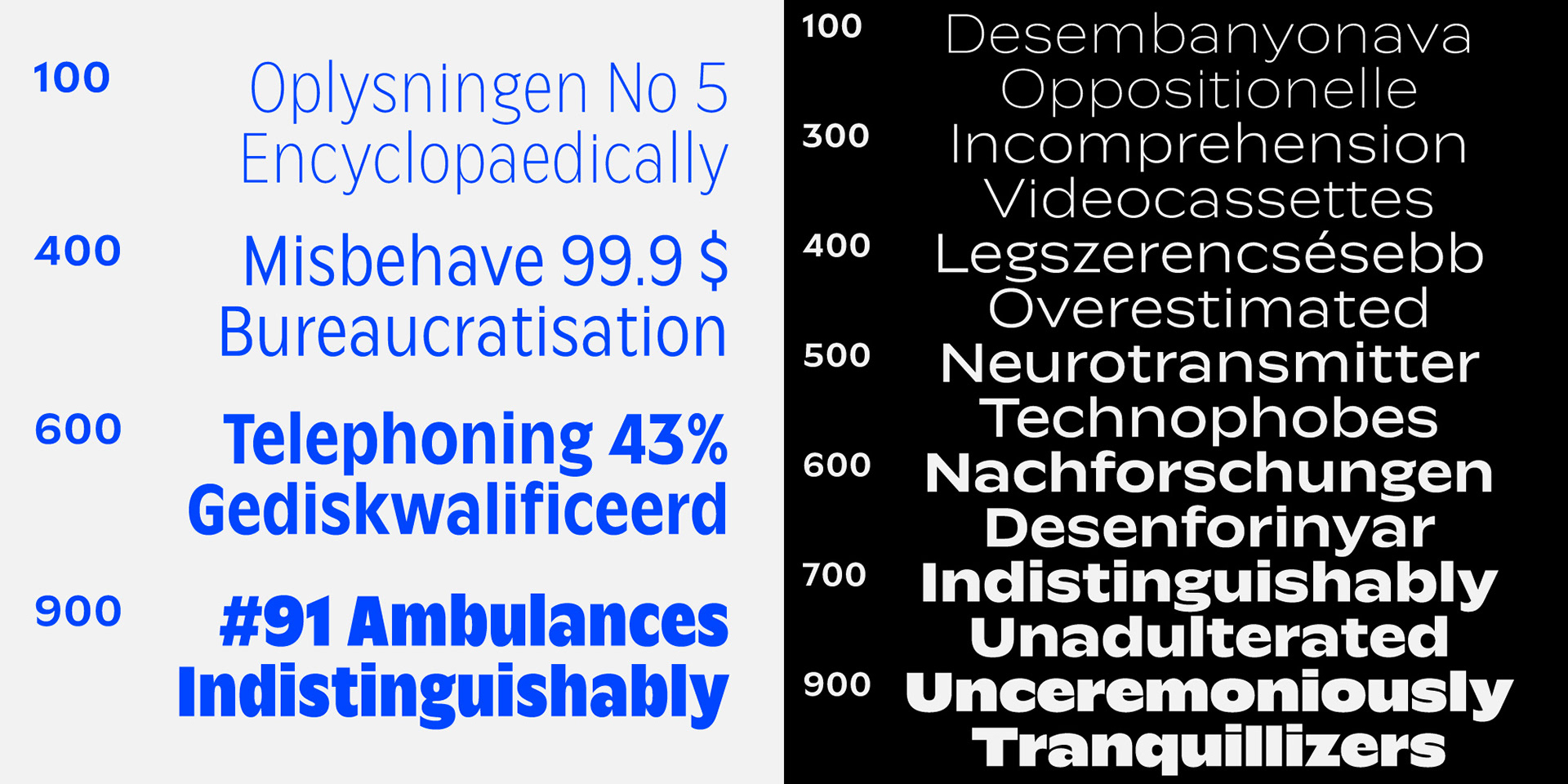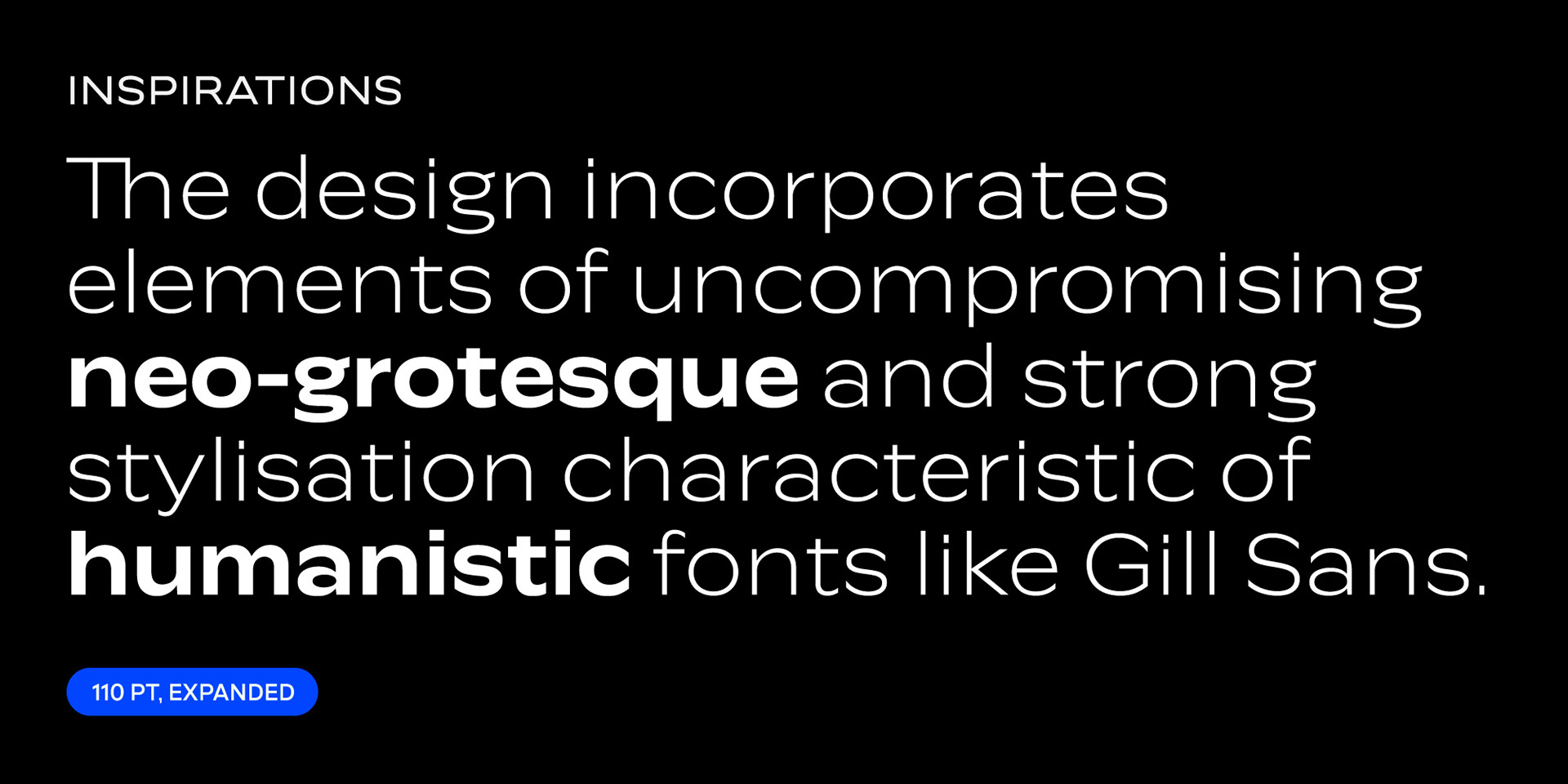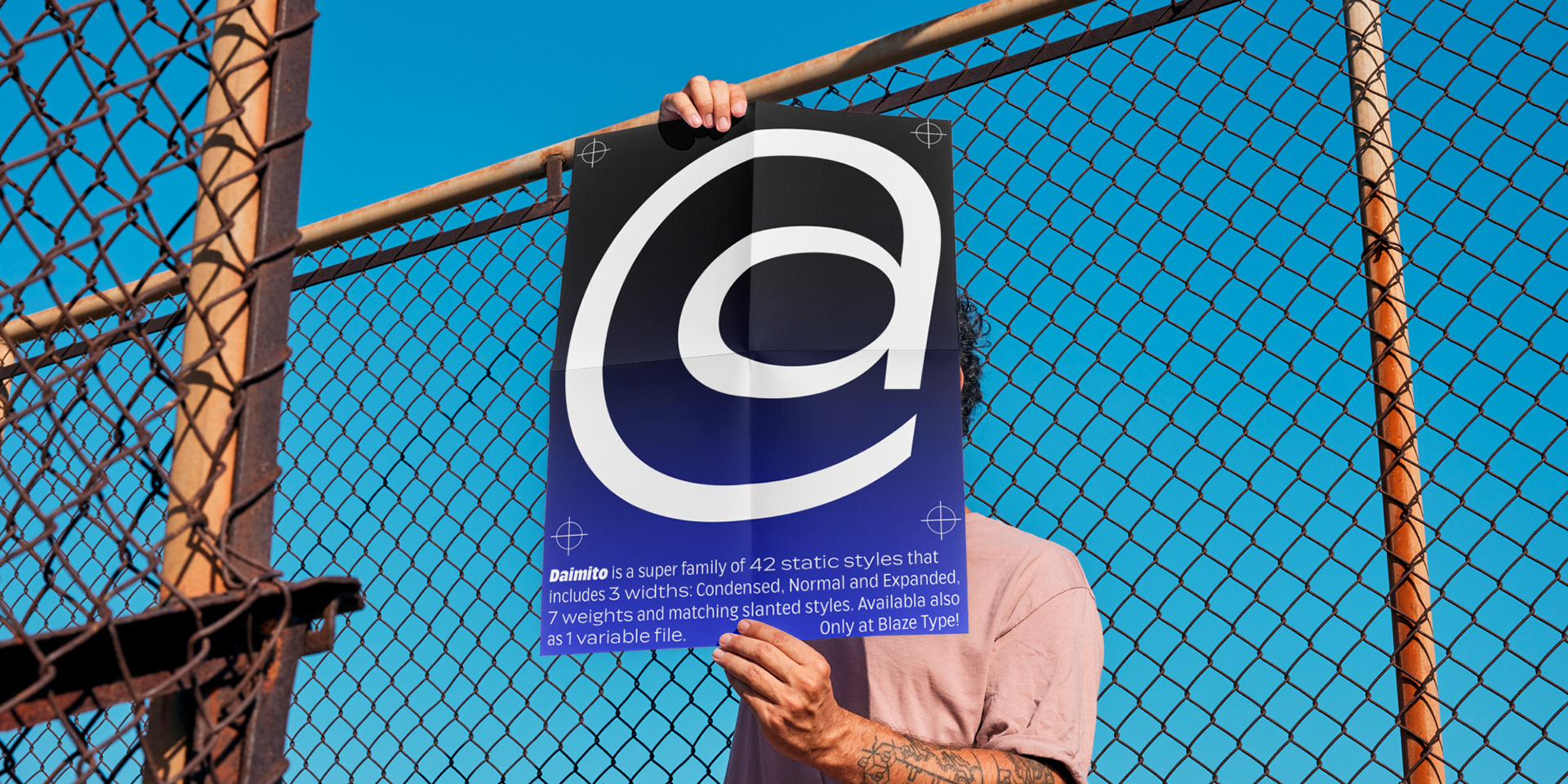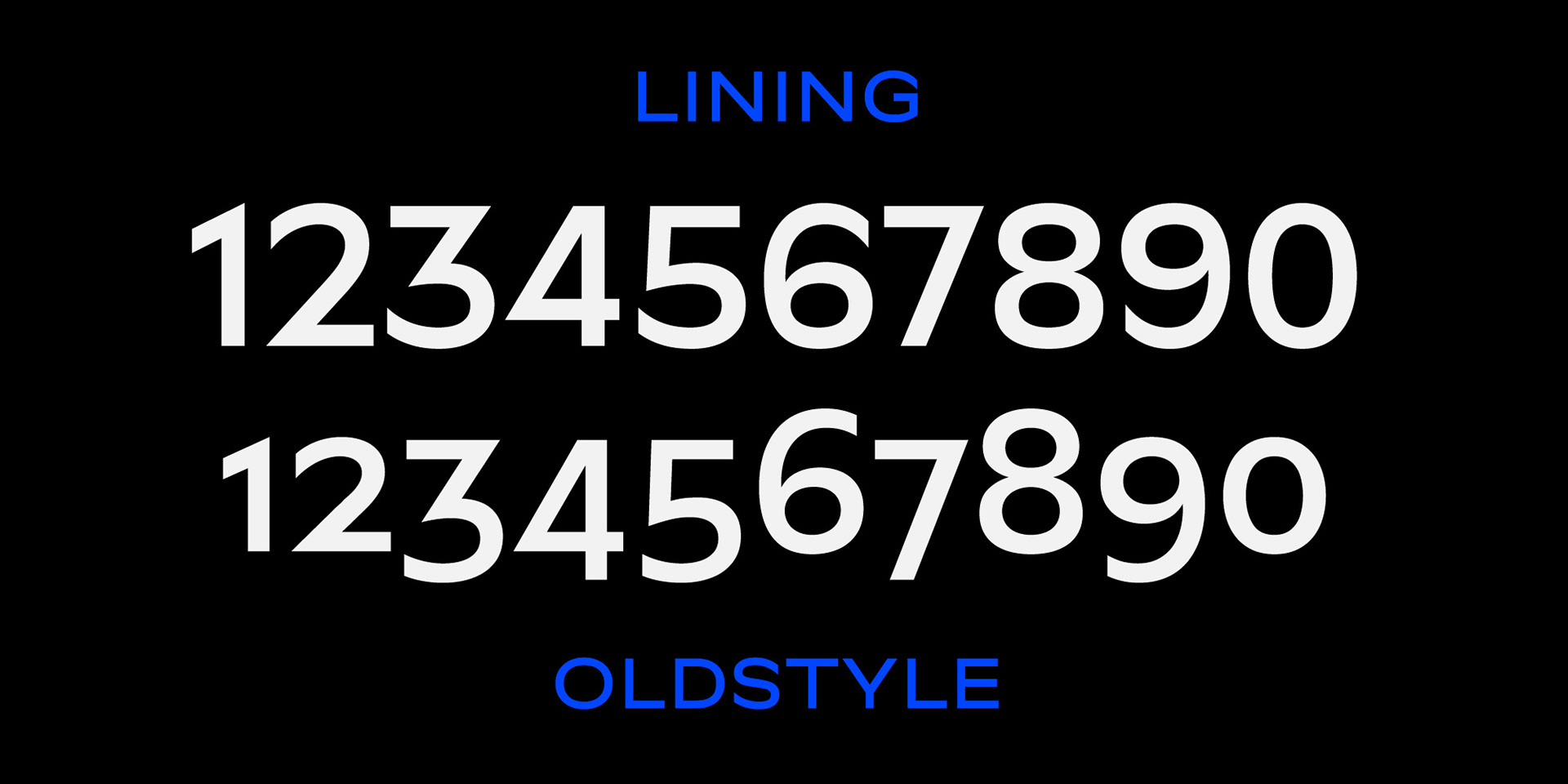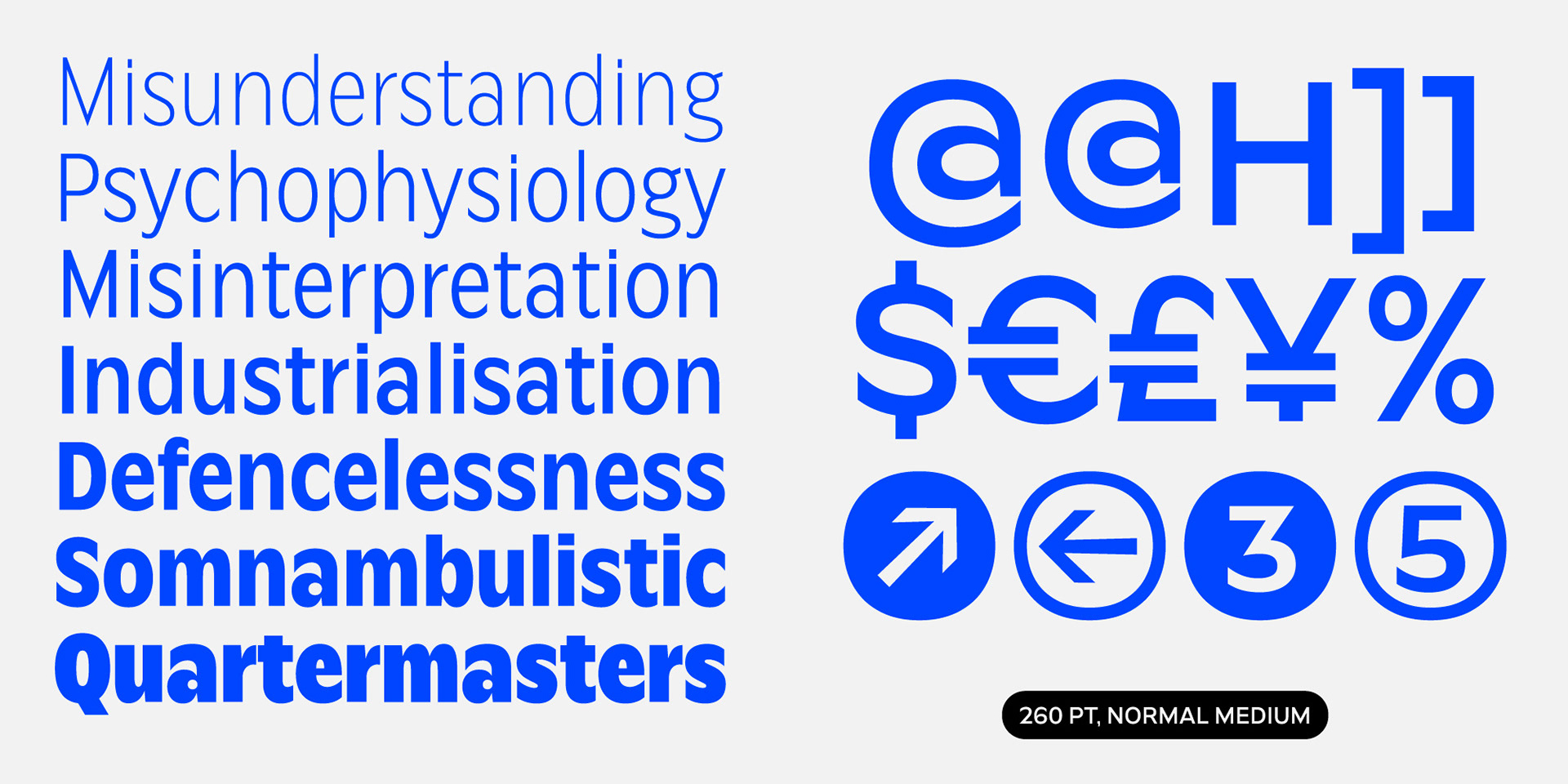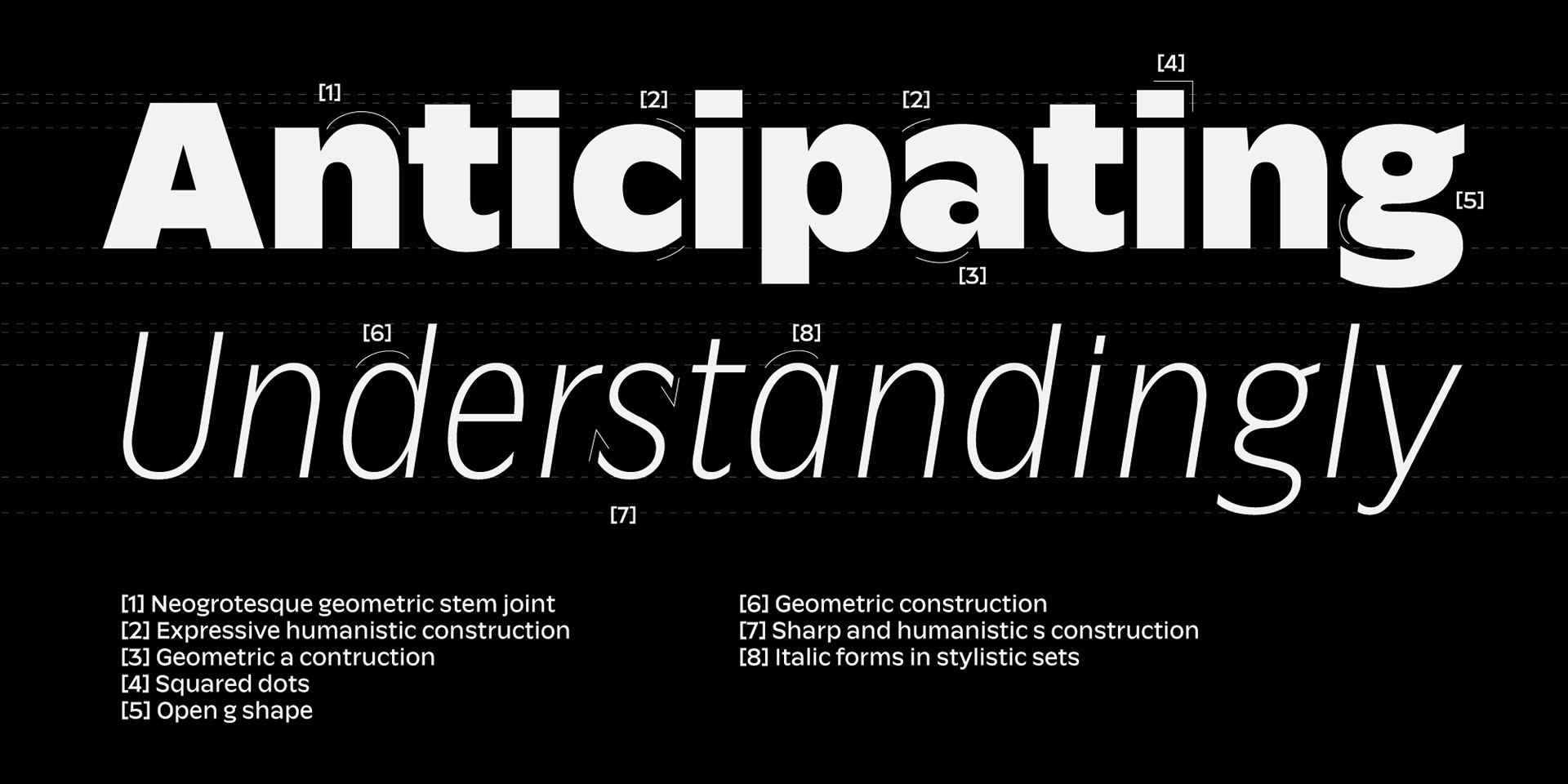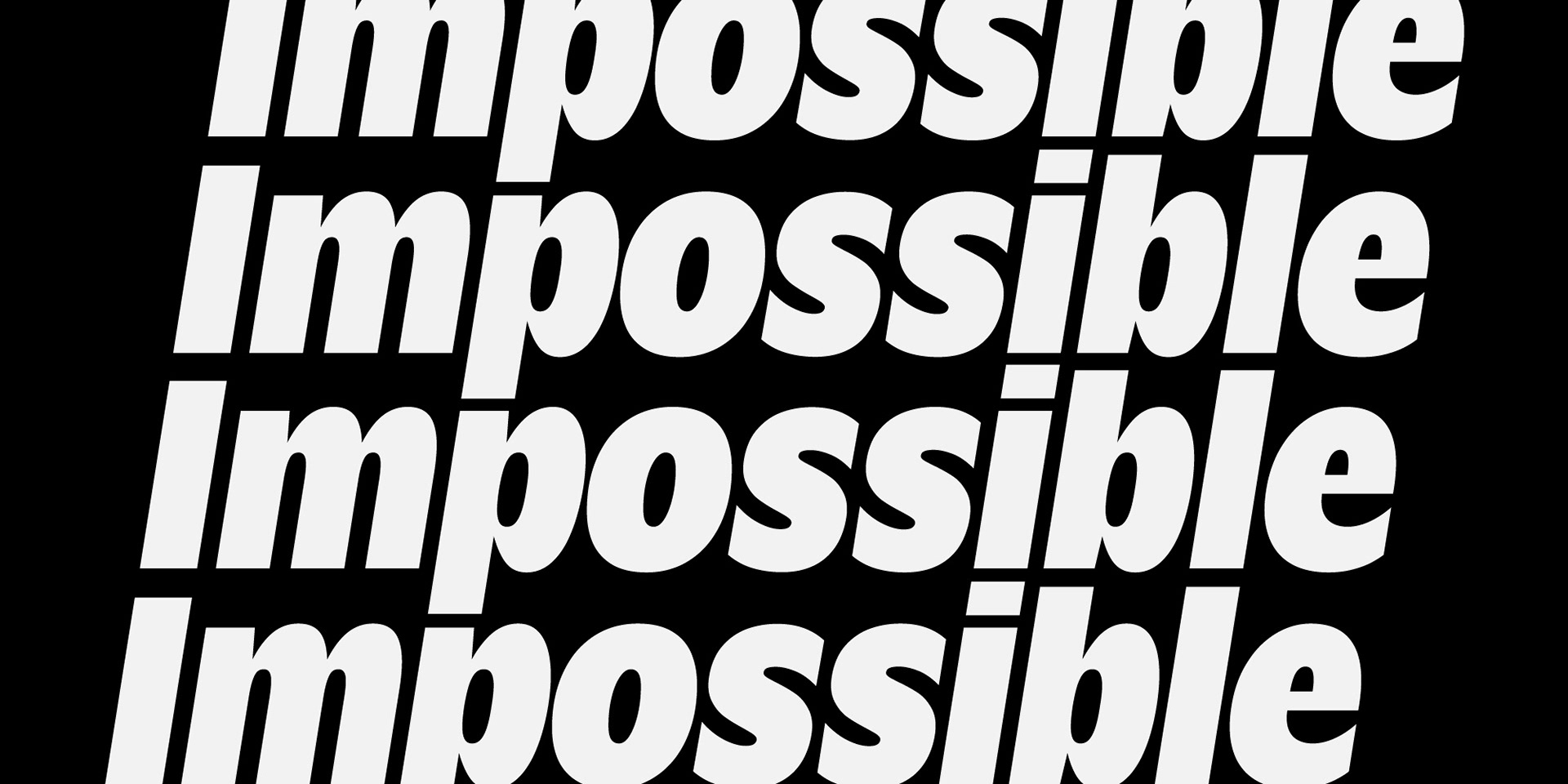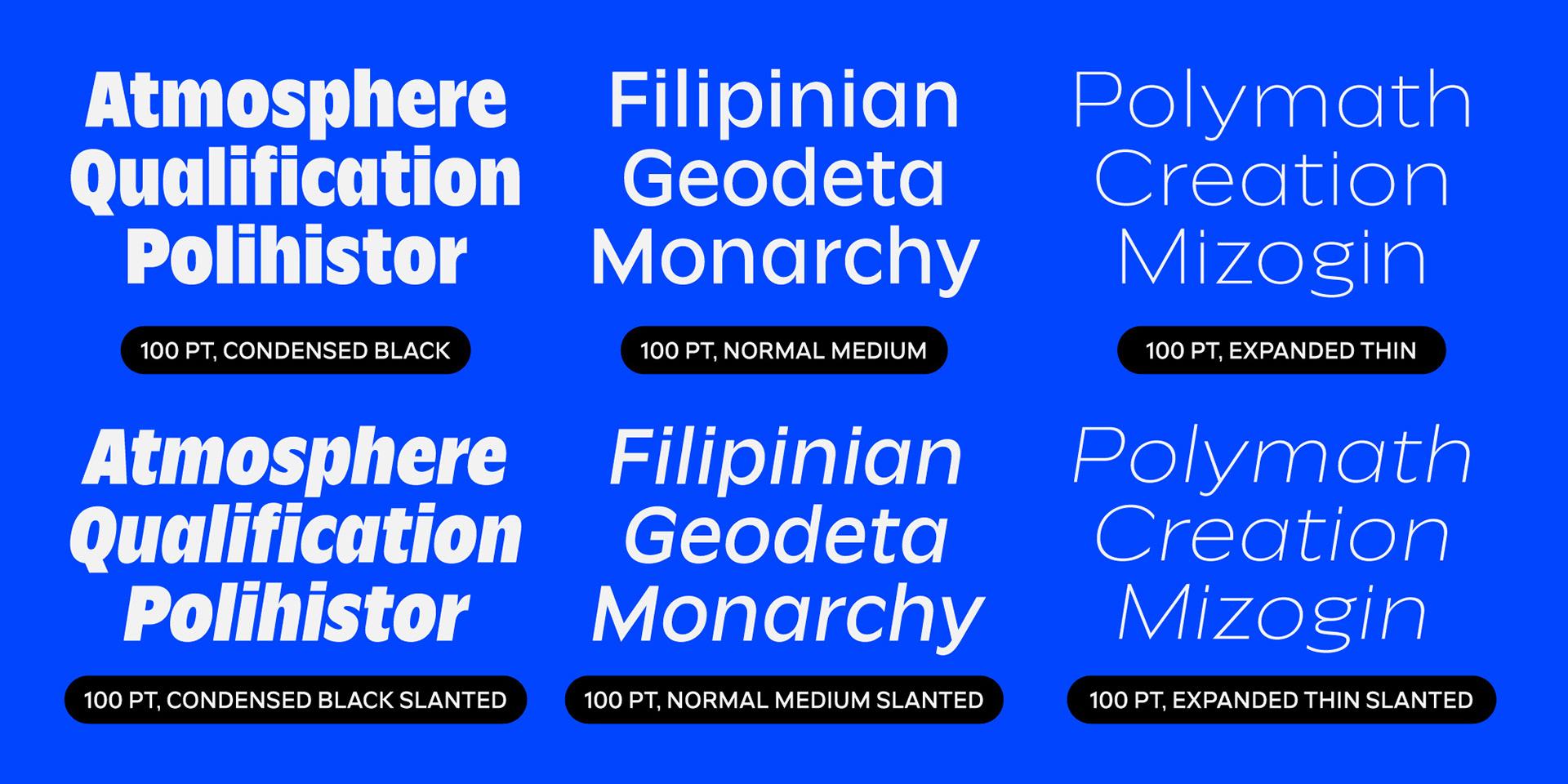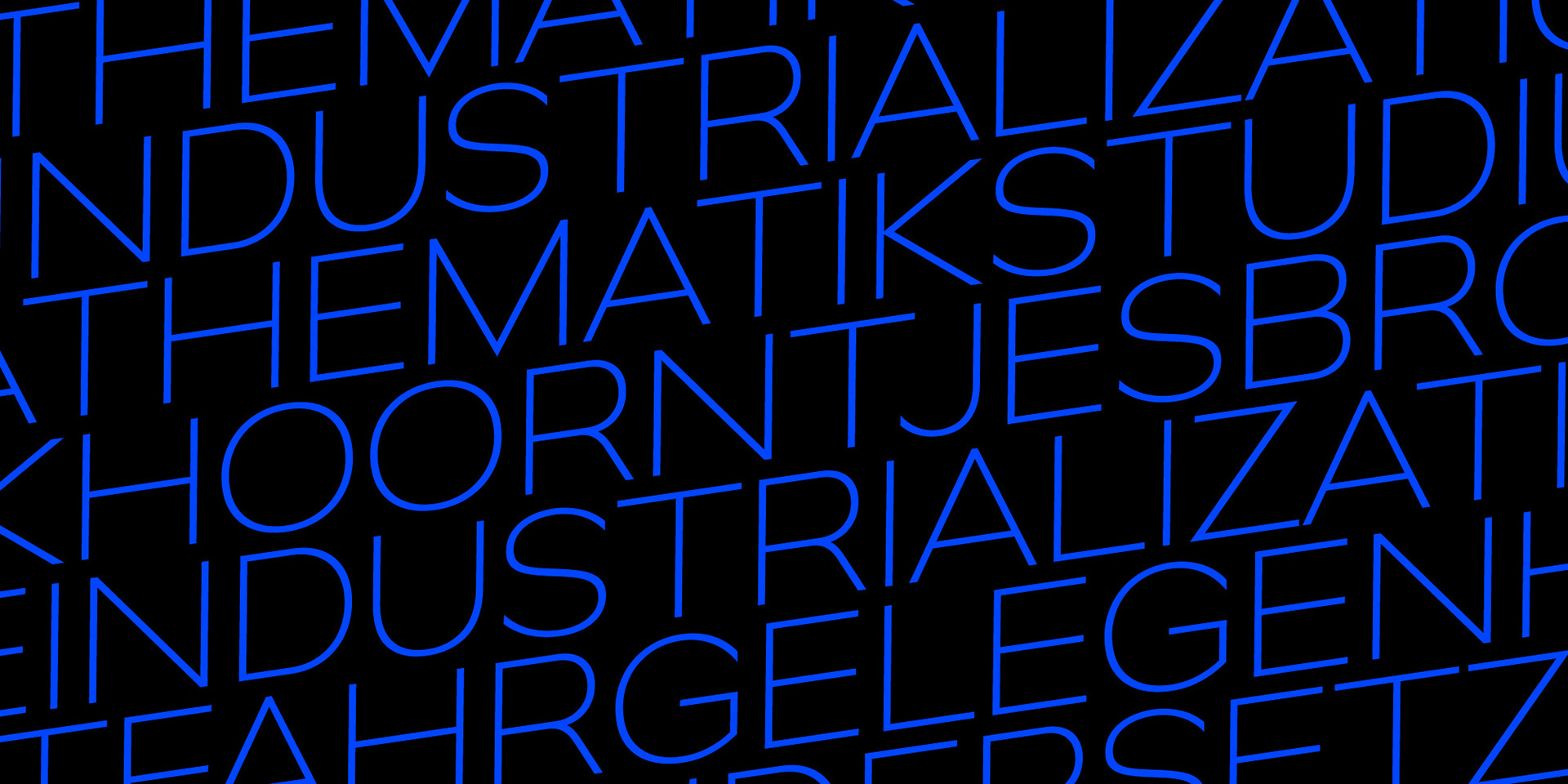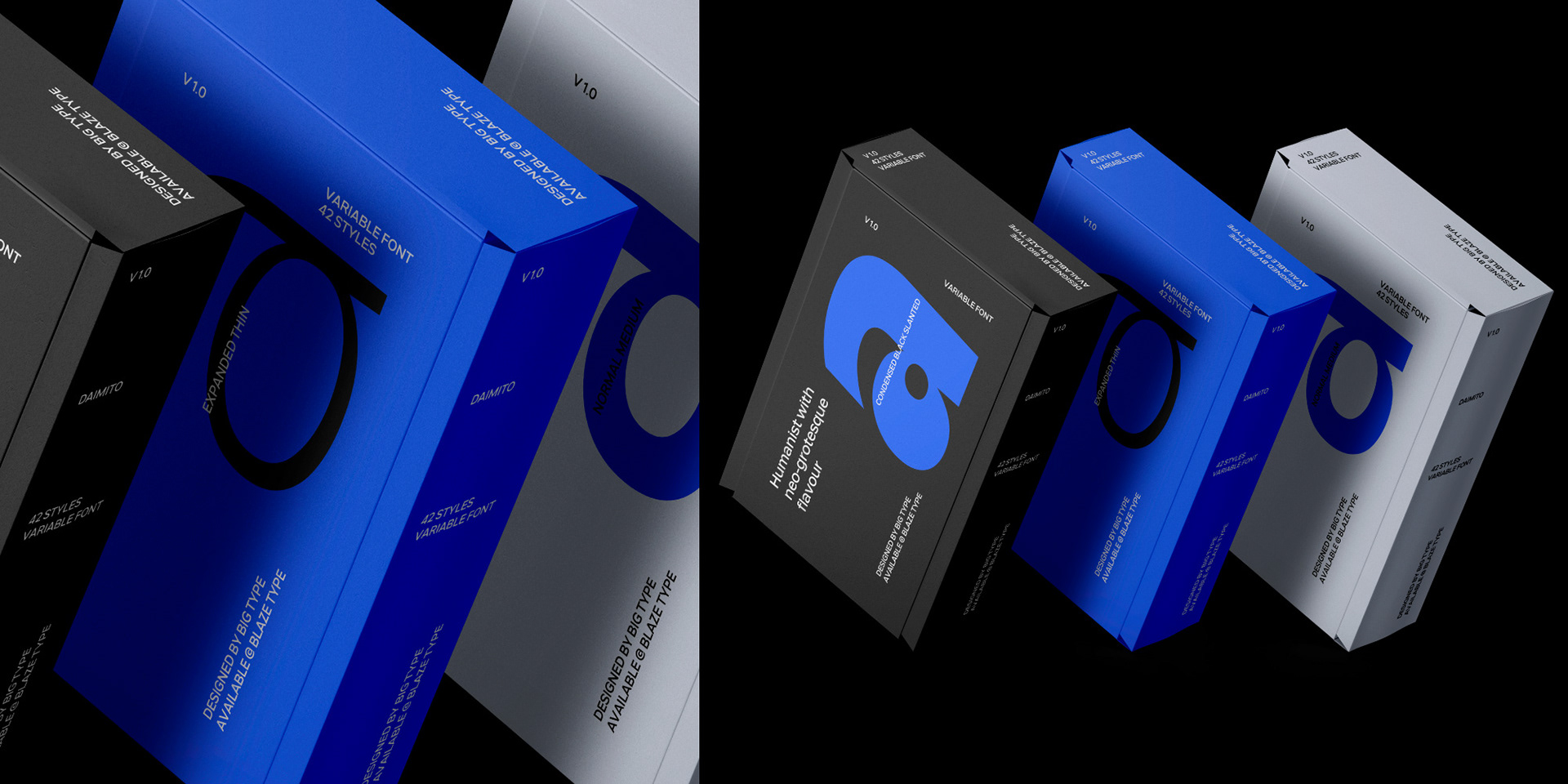
Daimito
Type family
Daimito is the result of two years of research into sharp yet stable forms, positioned between the great but relatively young typographic styles of our modern times. The design incorporates elements of uncompromising neo-grotesque and strong stylisation characteristic of humanistic fonts like Gill Sans. Daimito is a child aware of its cultural heritage, looking boldly into the future with the eyes of an explorer.
A wide range of weights allows you to adjust your means of expression and tone of voice. Matching slanted versions can be successfully used for highlighting and creating new value within the systems. Three widths expand the usability of Daimito and enable use in the most demanding environments.
The entire family is packed into one elegant variable file, creating almost infinite possibilities for designing systems for designers who care about every nuance of their work.